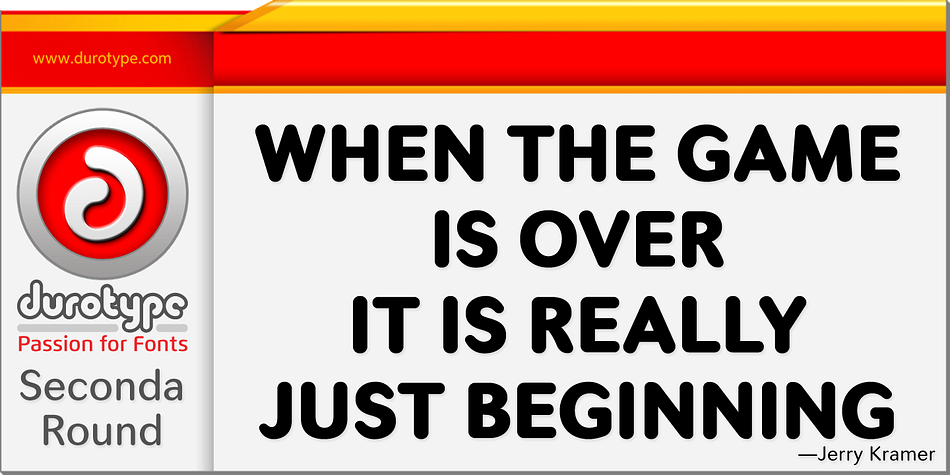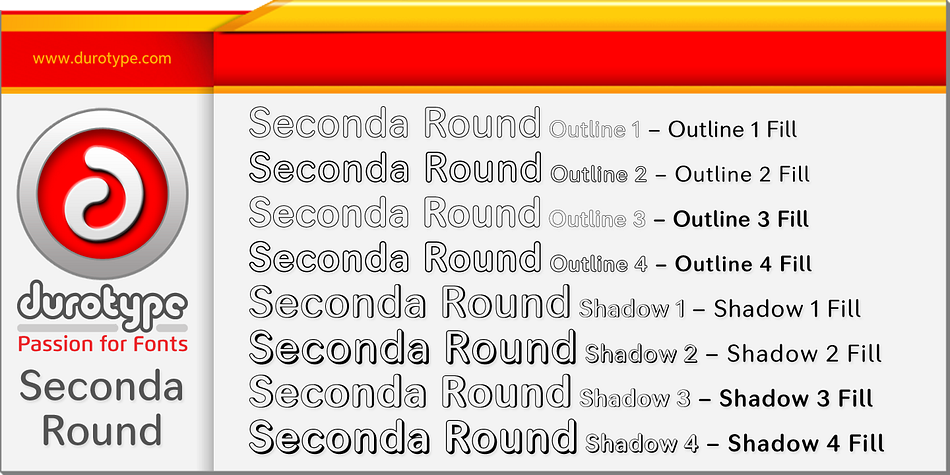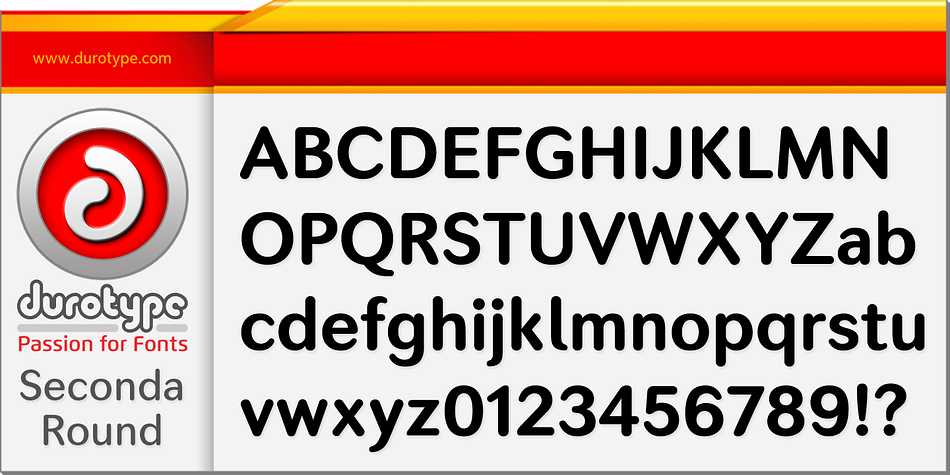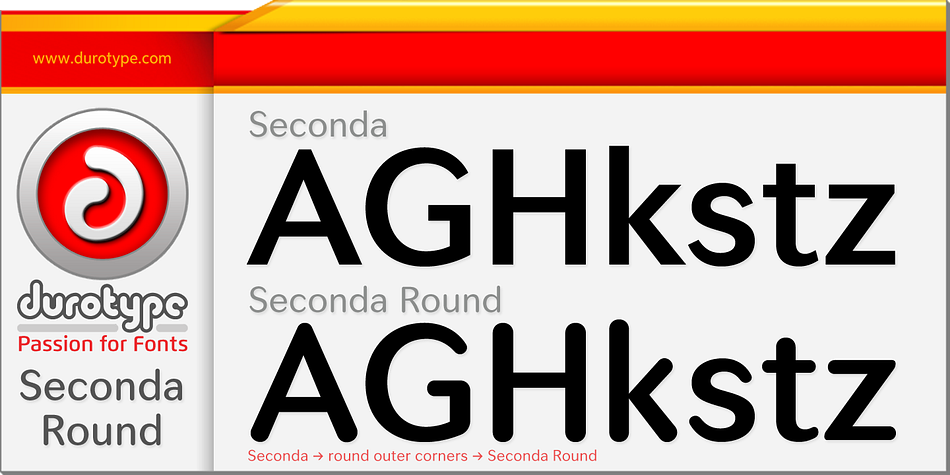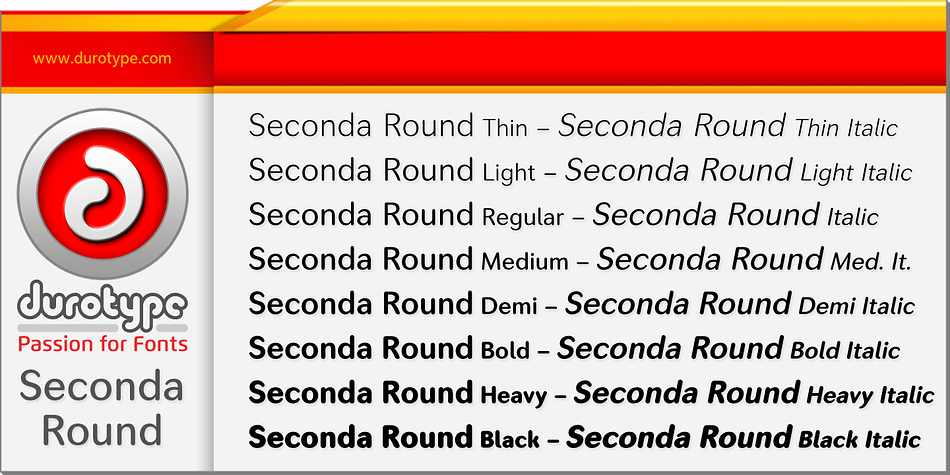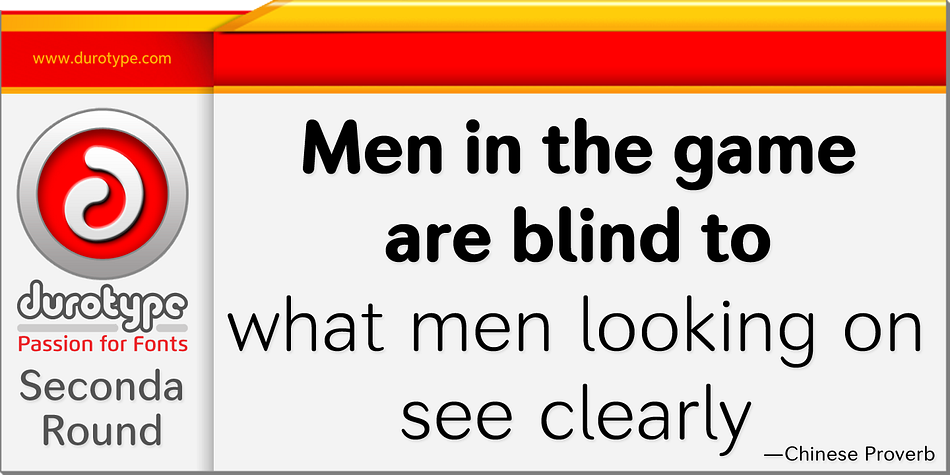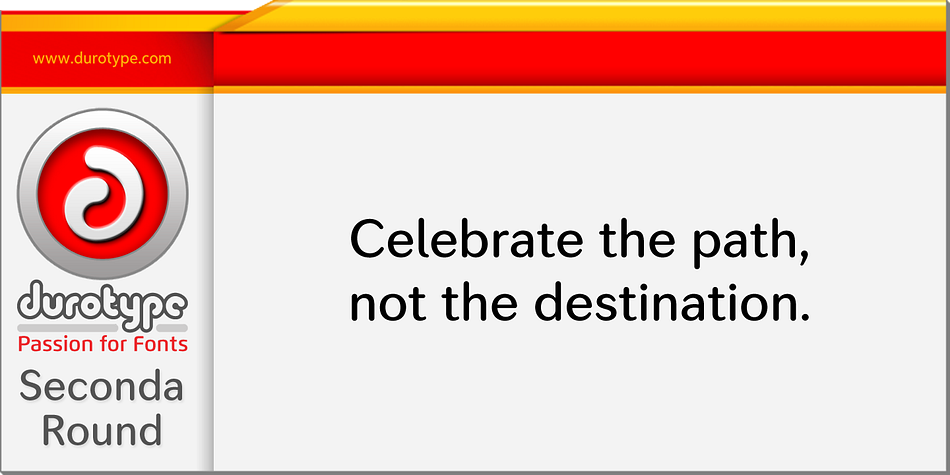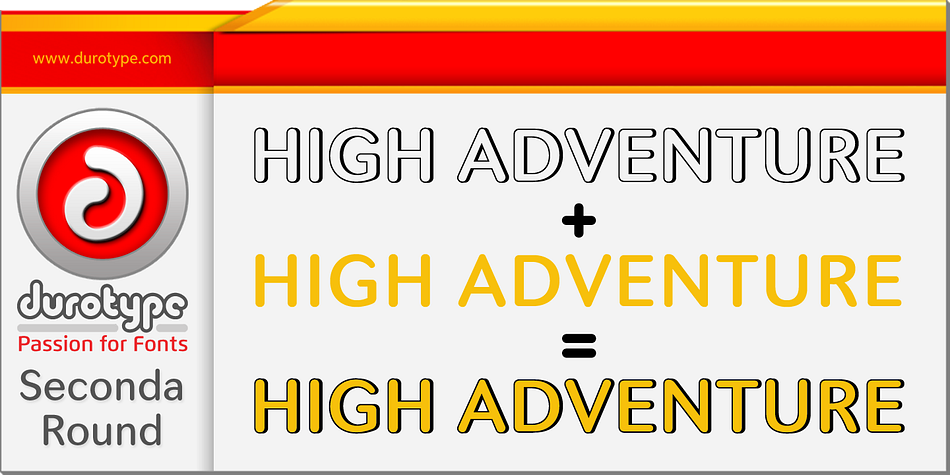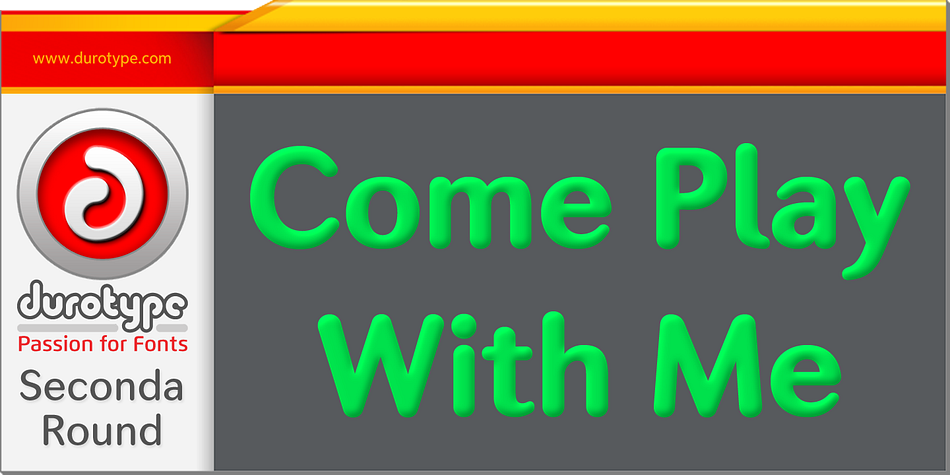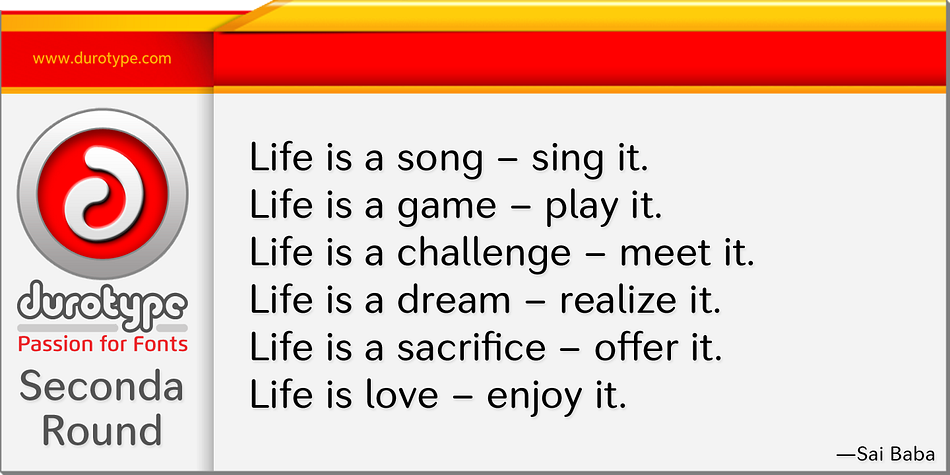
Seconda Round is a sans serif and display sans font family. This typeface has thirty-three styles and was published by Durotype.
Seconda Round is a contemporary, legible, and versatile typeface. It is the round companion of Seconda. Unlike Seconda Soft, which has moderate rounding — the edges of Seconda Round’s characters are fully rounded.
The Seconda Round family has been enriched by a collection of Outline and Shadow fonts, each with its own Fill font. Combine an Outline or Shadow font with its Fill font in an application that uses layers, to create a two-color version of the Outline or Shadow font.
Seconda Round has 32 styles, extensive language support, eight different kinds of figures, sophisticated OpenType features — so it’s ready for advanced typographic projects.
For text and display use. The Outline, Shadow, and Fill fonts are not suitable for small size texts. The Fill fonts are only to be used in combination with their Outline or Shadow font.
Seconda Round can be combined with any other member of the Seconda superfamily, extending the wealth of design options the Seconda superfamily offers. Seconda Round is well suited for graphic design, editorial design, and corporate identity design. Seconda Round’s Outline and Shadow fonts will add flair to any design project.